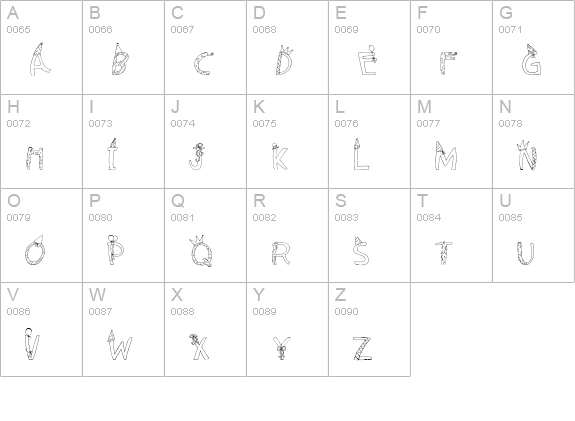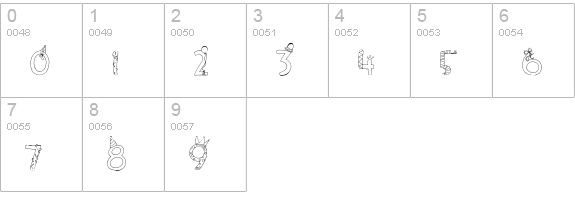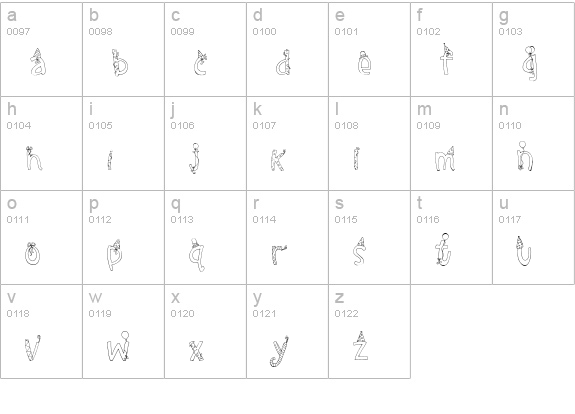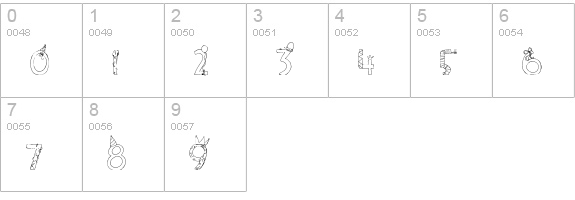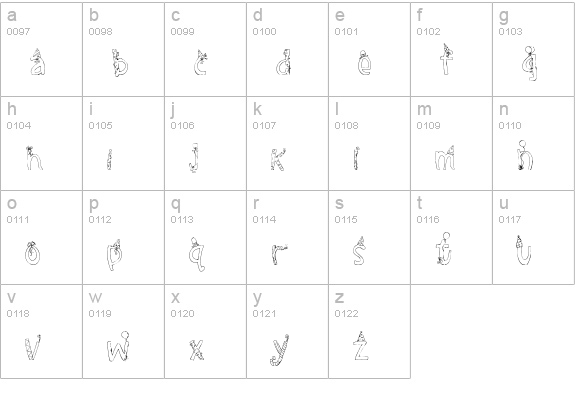
Introducing CK Let's Party font, a vibrant and playful typeface that exudes a sense of celebration and fun. This lively font is perfect for adding a touch of joy and excitement to your designs. With its bold and energetic appearance, CK Let's Party is sure to make your text stand out and grab attention. The best part? CK Let's Party font is completely free to download at FontsMarket.com. You can easily add this dynamic font to your collection and bring a festive vibe to your projects without any cost. Whether you're designing party invitations, greeting cards, or social media graphics, CK Let's Party font is the perfect choice to infuse your creations with a sense of joy and cheer. Download it now and let the party begin!